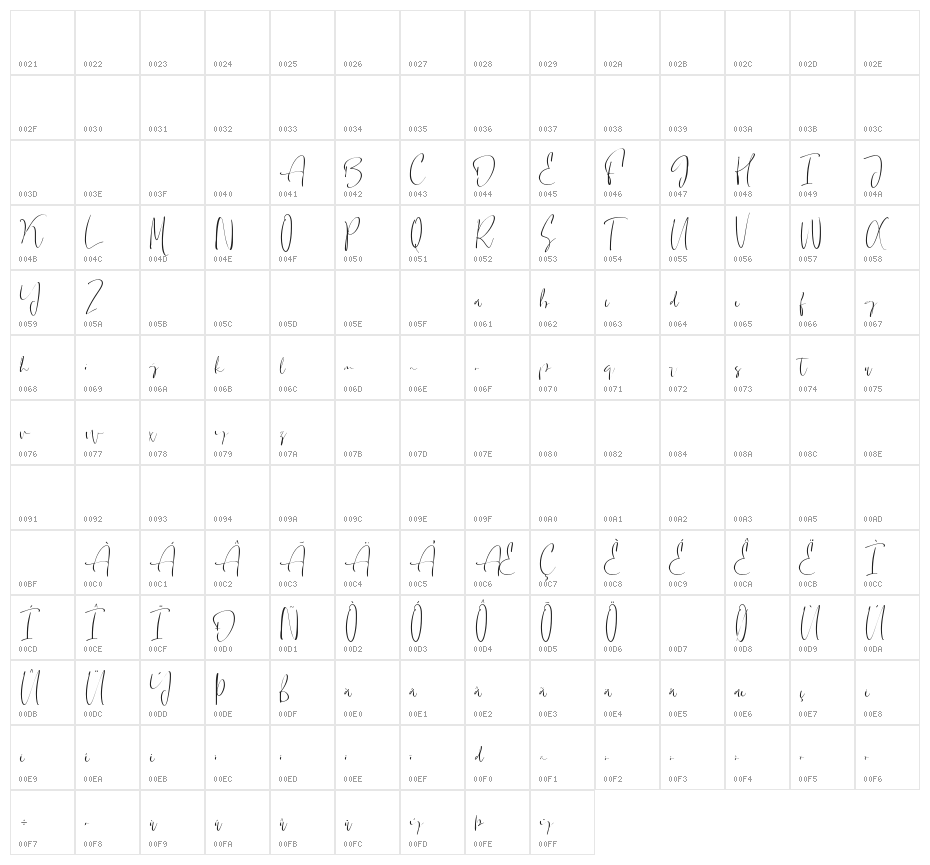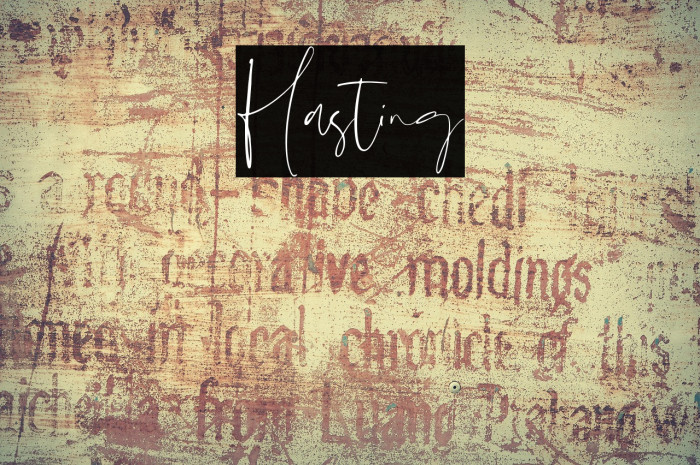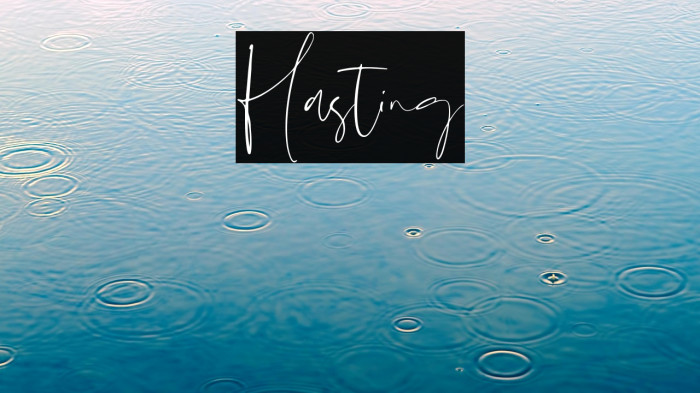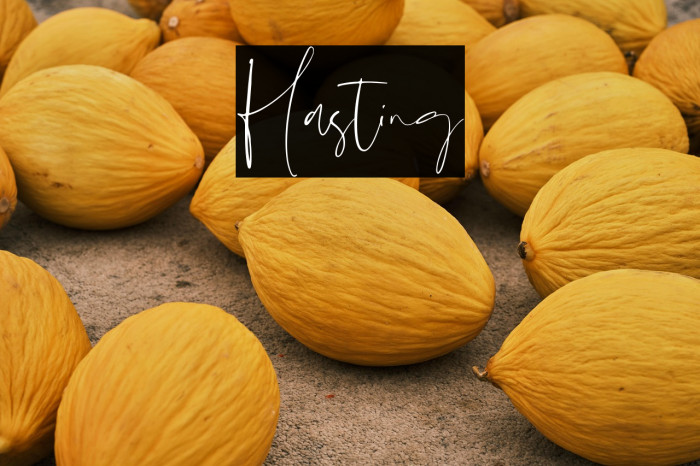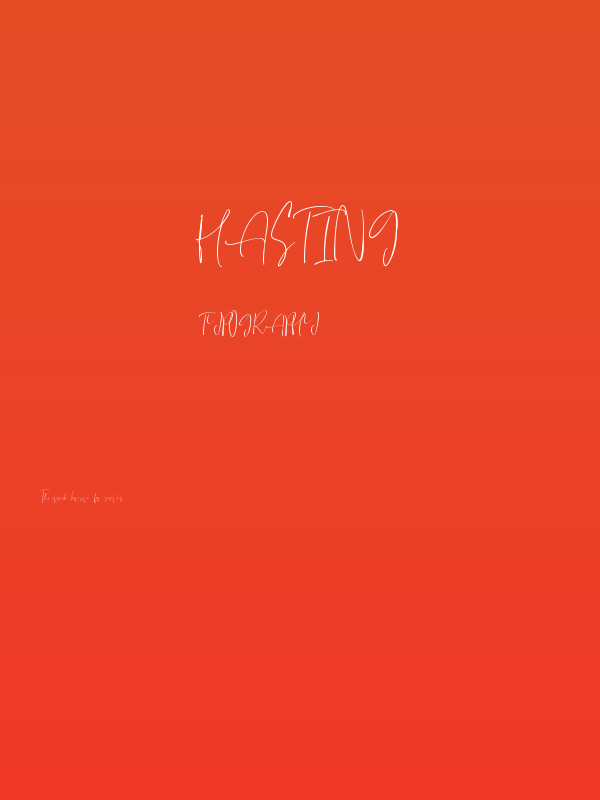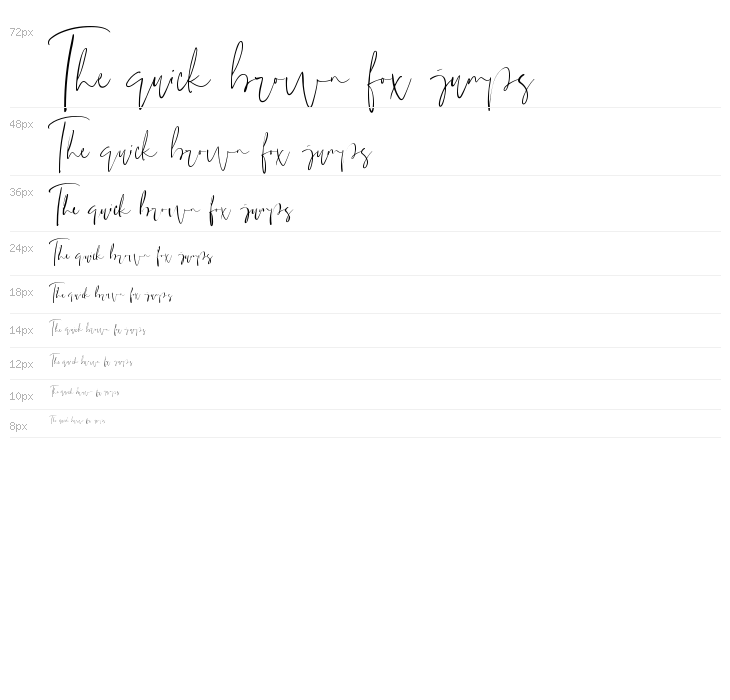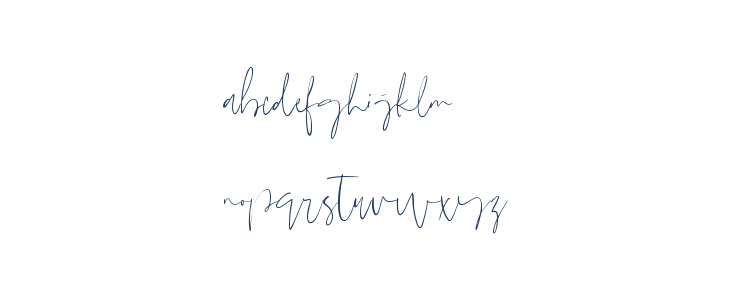
Hasting Font
Hasting Description
This font exhibits a flowing, cursive style with an elegant and artistic flair. The letters are interconnected, creating a seamless and continuous script that mimics natural handwriting. The strokes are thin and delicate, with varying thickness that adds a dynamic and lively quality to the text. The uppercase letters are bold and prominent, while the lowercase letters maintain a consistent, graceful flow. This font is perfect for projects that require a personal touch or a sophisticated aesthetic. Its unique style makes it ideal for invitations, branding, and decorative purposes.
| Use Case | Logos, Invitations, Decorative text |
| Proposed Projects | Ideal for wedding invitations, personal branding, greeting cards, and decorative designs. |